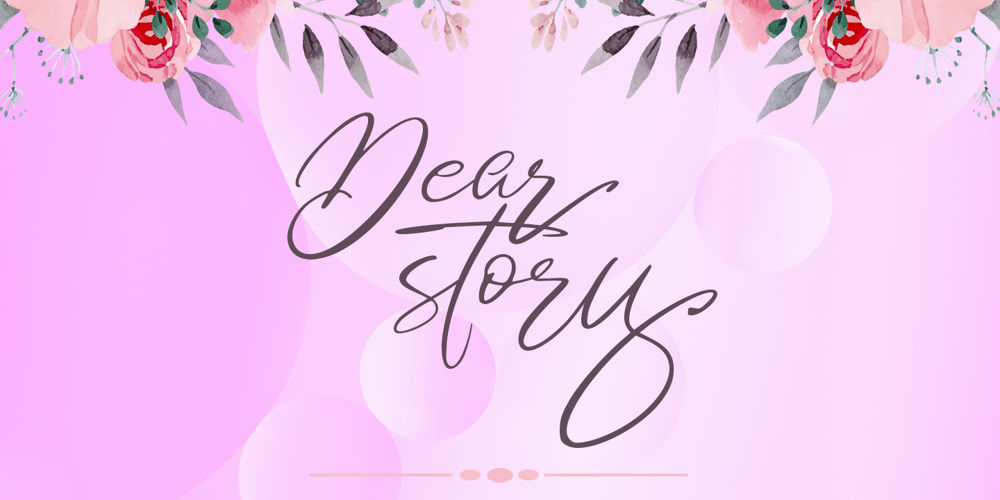
Dear Story Font Family was designed by Yur Lis and published by Stripes Studio. Dear Story contains 1 styles and family package options. Hi, Introducing the latest styles Dear story with the kind of modern hand scratches, I hope you are interested in this font, if you want to use for your work this font can be used easily and simply because there are a lot of features in it to contain a complete set of letters lower and uppercase letters, assorted punctuation, numbers, and multilingual support. font also contains several ligatures and alternate style StylisticTo enable the OpenType Stylistic alternates, you need a program that supports OpenType features such as Adobe Illustrator CS, Adobe Indesign & CorelDraw X6-X7, Microsoft Word 2010 or later versions. And there are additional ways to access alternates/swashes, using Character Map (Windows), Nexus Font (Windows), Font Book (Mac) or a software program such as PopChar (for Windows and Mac).How to access all alternative characters using Adobe Illustrator:https://www.youtube.com/watch?v=XzwjMkbB-wQHow to access all alternative characters, using Windows Character Map with Photoshop:https://www.youtube.com/watch?v=Go9vacoYmBwThis Font has given PUA unicodeThank you for your purchase!